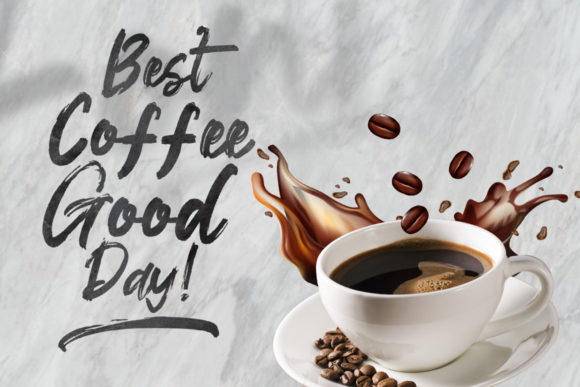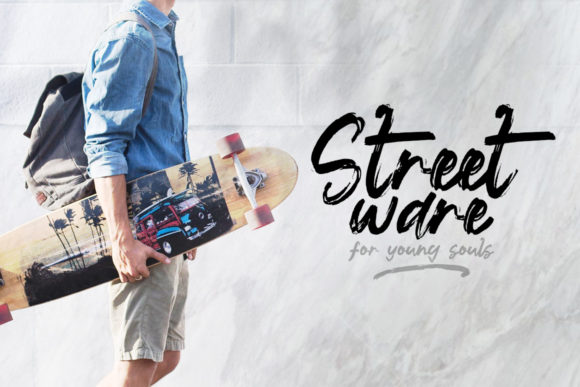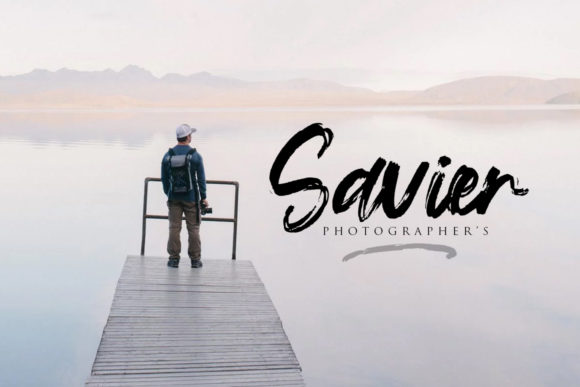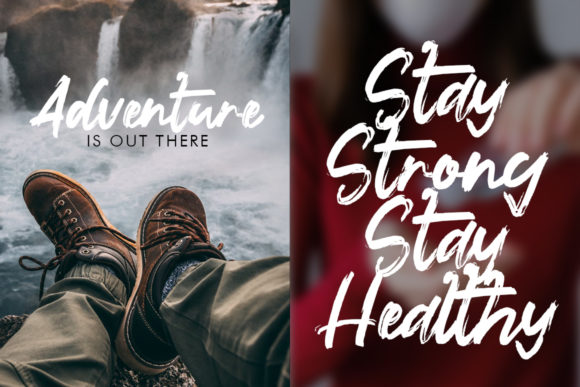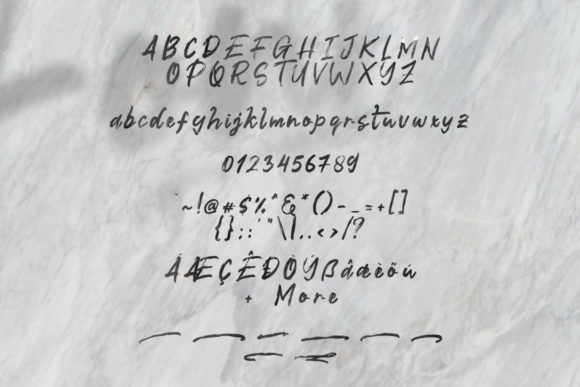
Fontix Font
About Fontix Font
Fontix is a casual, fun handwritten font, created by using a brush pen. Clean and a little bit quirky, this font is the perfect fit for all of your logos, branding, social media, and crafty DIY projects.